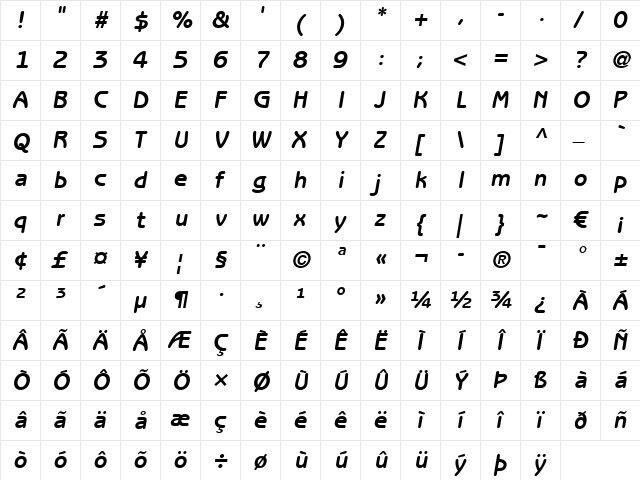
BenguiatGothic LT Medium Bold Italic Font Preview
Design Context for BenguiatGothic LT Medium Typeface
BenguiatGothic LT Medium has the quiet confidence of well-executed sans-serif typography: versatile, unobtrusive, and dependable at any size. The slanted form adds forward momentum and visual energy. The heavy weight commands attention and anchors typographic hierarchies.
Well-suited to navigation labels, product packaging, and anywhere legibility at scale is essential.
Font Pairing: Use BenguiatGothic LT Medium for headlines alongside a lighter-weight sans or serif for body copy to establish clear visual hierarchy.
Pro Tip: Use BenguiatGothic LT Medium with generous tracking and line-height for the most luxurious effect — light sans-serifs reward spacious, considered layouts.